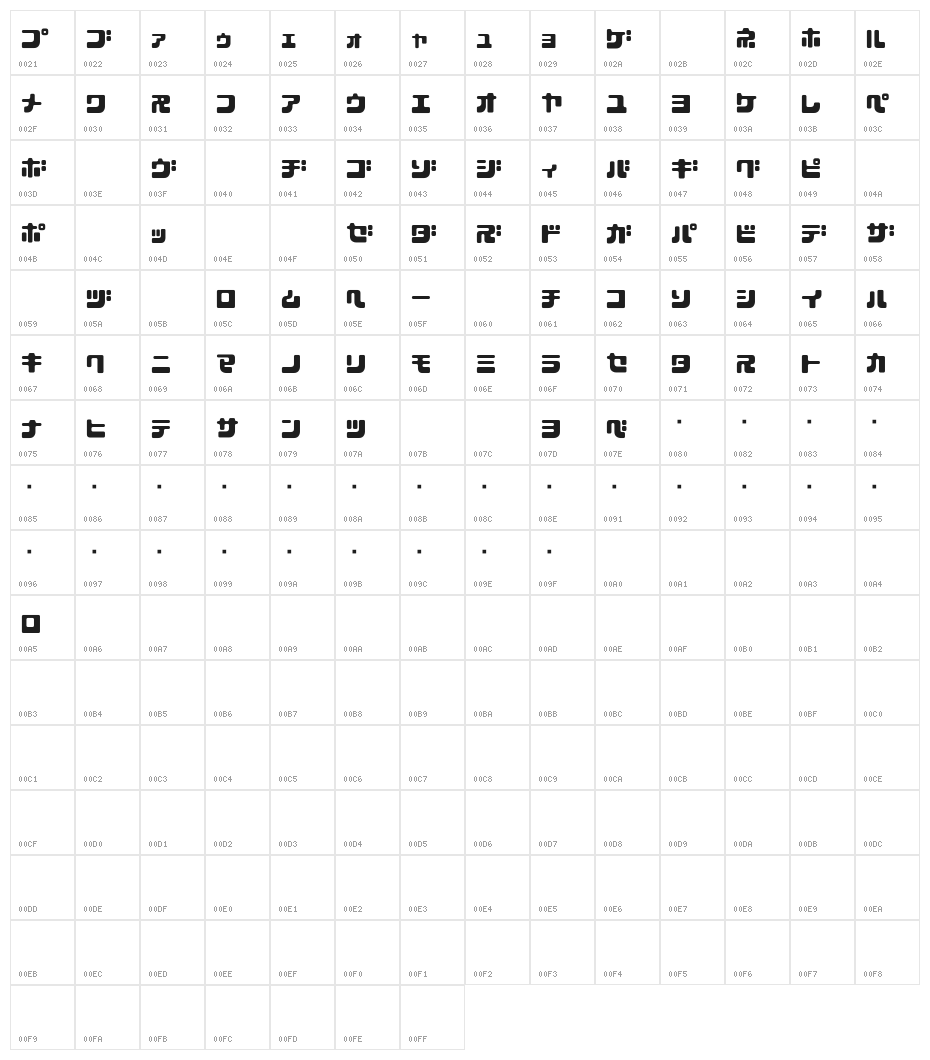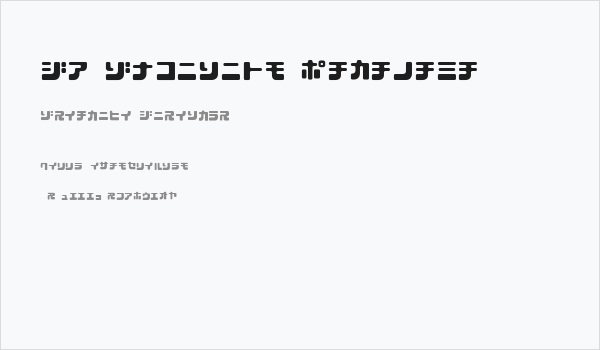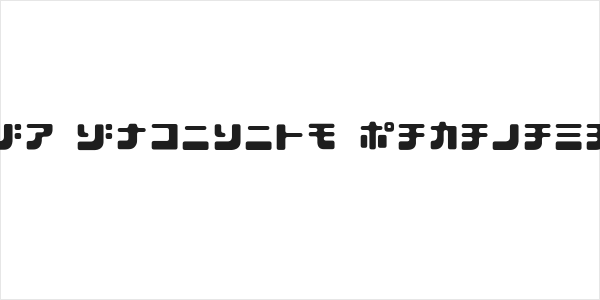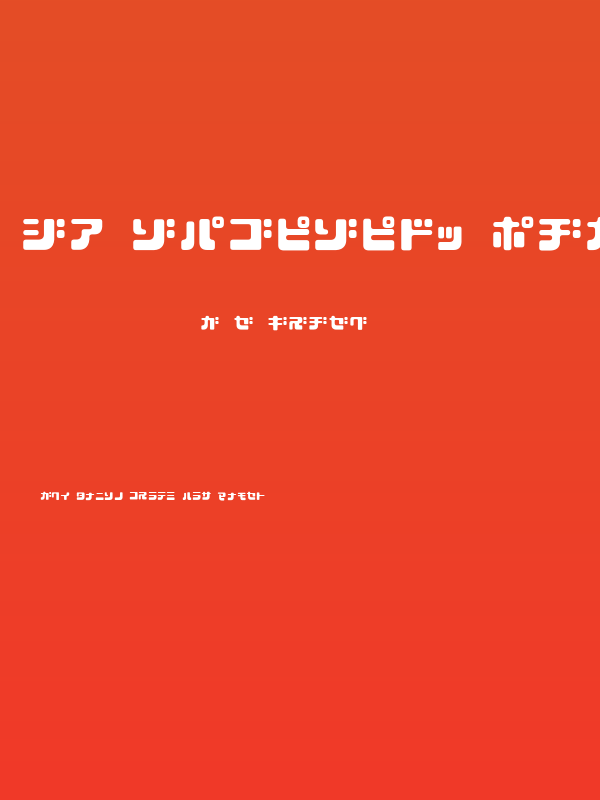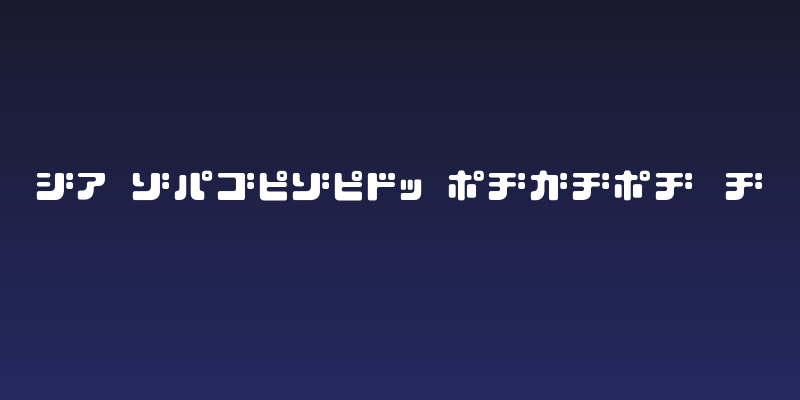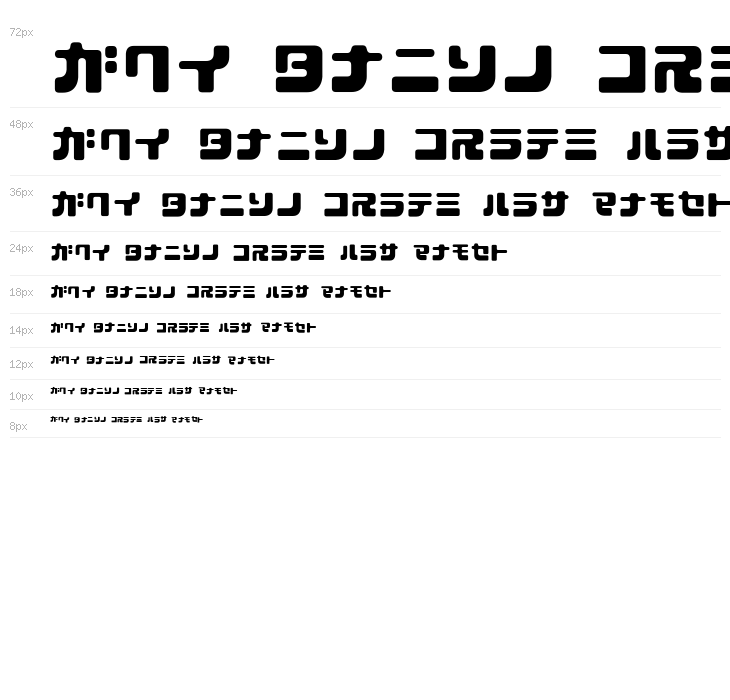
D3 Cubicism Katakana Font
D3 Cubicism Katakana Description
This font features a bold, geometric style with a distinctly modern and futuristic appearance. The characters are constructed with thick, block-like shapes that give a sense of solidity and strength. The design incorporates sharp angles and straight lines, creating a uniform and cohesive look across all characters. The spacing between characters is tight, enhancing the compact and dense appearance of the text. This font is particularly striking in its use of negative space, which adds to its visual impact and readability. The overall style is both decorative and functional, making it suitable for a variety of creative applications.
| Use Case | Logos, Headlines |
| Proposed Projects | Ideal for use in branding, posters, video game graphics, and futuristic-themed designs. |